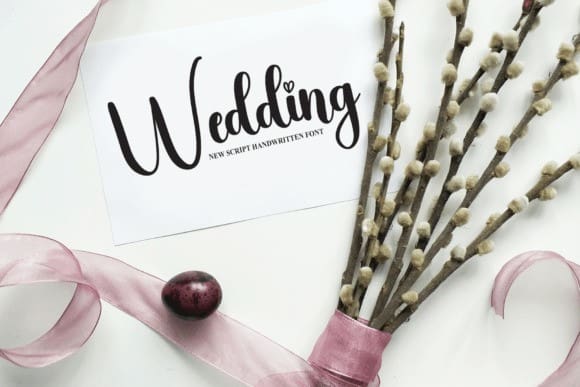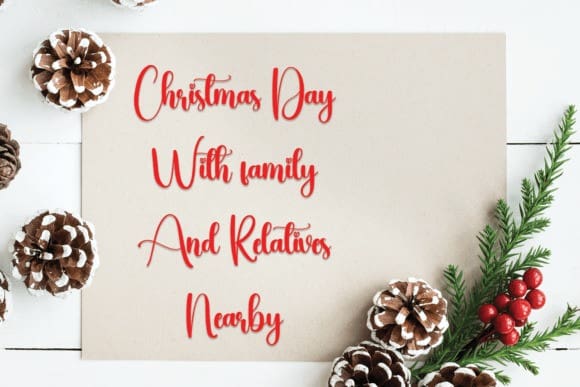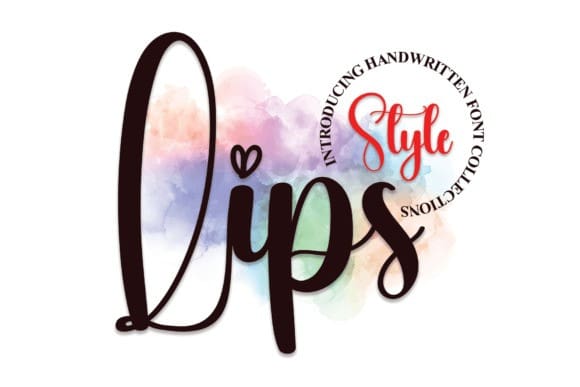
Lips Script Font
Lips Script Font, is a cool and casual handwritten font. Whether you’re using it for crafts, digital design, presentations, or making greeting cards, this font has the potential to become your favorite go-to font, no matter the occasion.